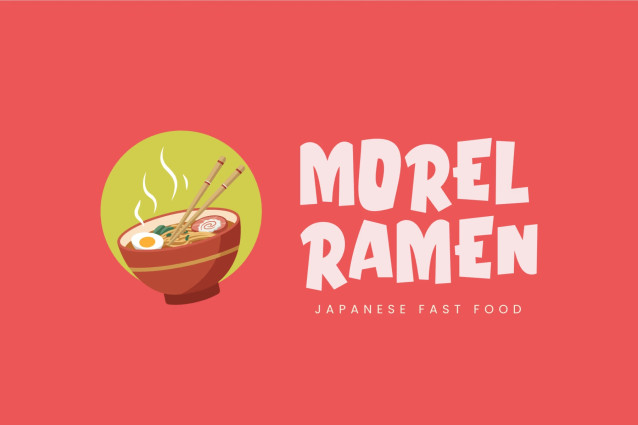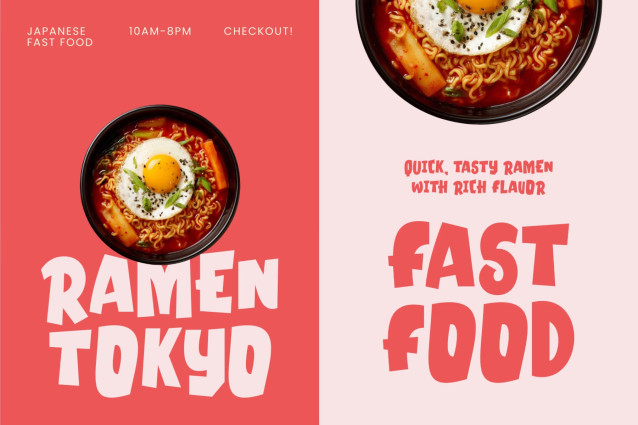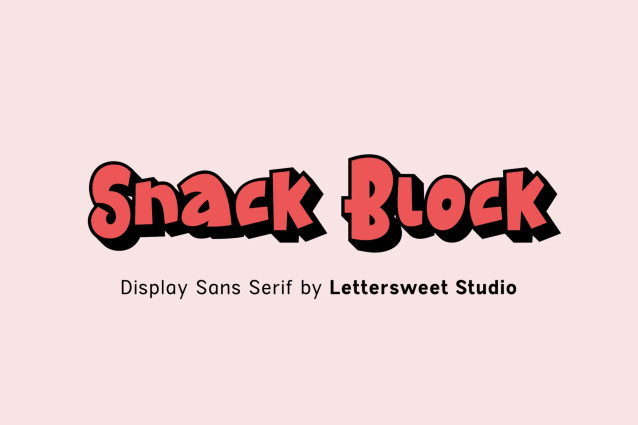
Snack Block is a bold display sans serif font featuring a chunky, playful, and energetic personality. Its expressive letterforms, slightly irregular shapes, and strong proportions create an eye-catching appearance that works perfectly for designs that need to stand out instantly.
One of Snack Block’s biggest strengths is its combination of strong readability and distinctive visual character. The bold, blocky letterforms make headlines easy to notice, while its playful construction adds a friendly, youthful, modern, and slightly retro feel to your artwork.
Snack Block is a great choice for logos, branding, posters, headlines, food packaging, snack labels, kids designs, merchandise, T-shirts, stickers, thumbnails, social media graphics, banners, menus, covers, and promotional materials. Its cheerful personality makes it especially suitable for snack brands, restaurants, cafés, children’s products, creative events, and entertainment-related projects.
If you’re looking for a bold display font that feels fun, memorable, and visually distinctive, Snack Block can help give your project a stronger and more recognizable identity.
Perfect for:
Logos, branding, packaging, snack branding, posters, headlines, social media, merchandise, apparel, stickers, menus, kids projects, advertising, thumbnails, covers, and creative display designs.